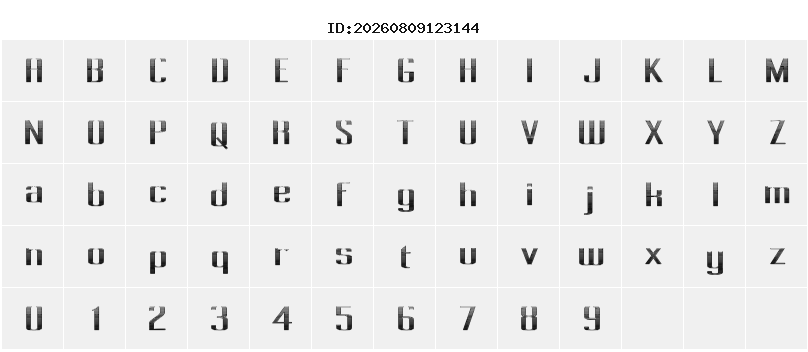
Pecot Lined Jewel Preview
• Font Name: Pecot Lined Jewel
• Full Font Name: Pecot Lined Jewel
About Pecot Lined Jewel.ttf
Pecot Lined Jewel.ttf is a modern, elegant sans-serif font designed for ultimate readability and visual harmony. Perfect for branding, headlines, web design, and print materials.